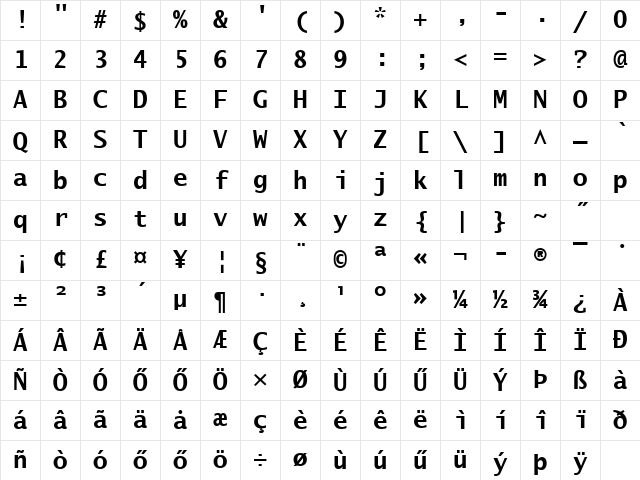
H_Lucida Sans Typewriter Bold
Design Context for H_Lucida Sans Typewriter
H_Lucida Sans Typewriter uses fixed-width spacing throughout, giving it the structured, systematic character associated with coding environments and technical documentation. Its bold stroke weight gives it real presence on the page.
Pro Tip: Use H_Lucida Sans Typewriter with slightly increased line-height for extended reading - fixed-width spacing can feel dense in longer passages without extra breathing room.